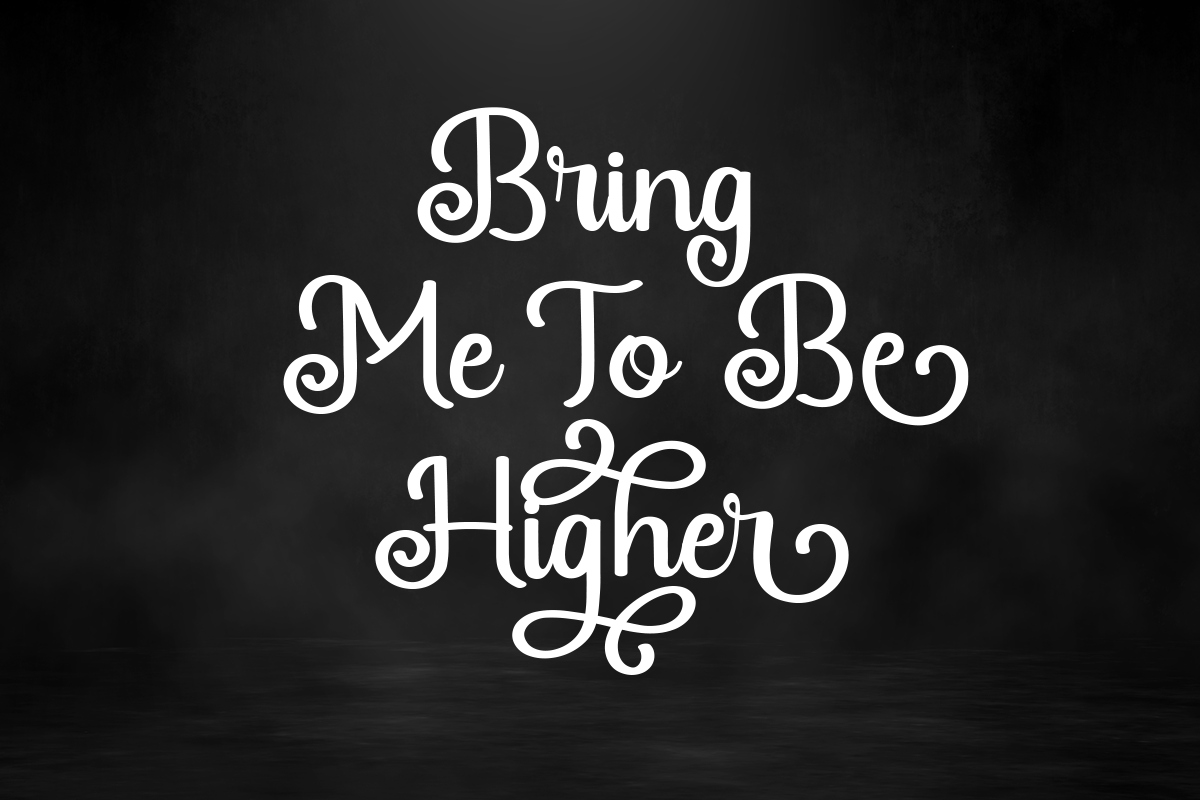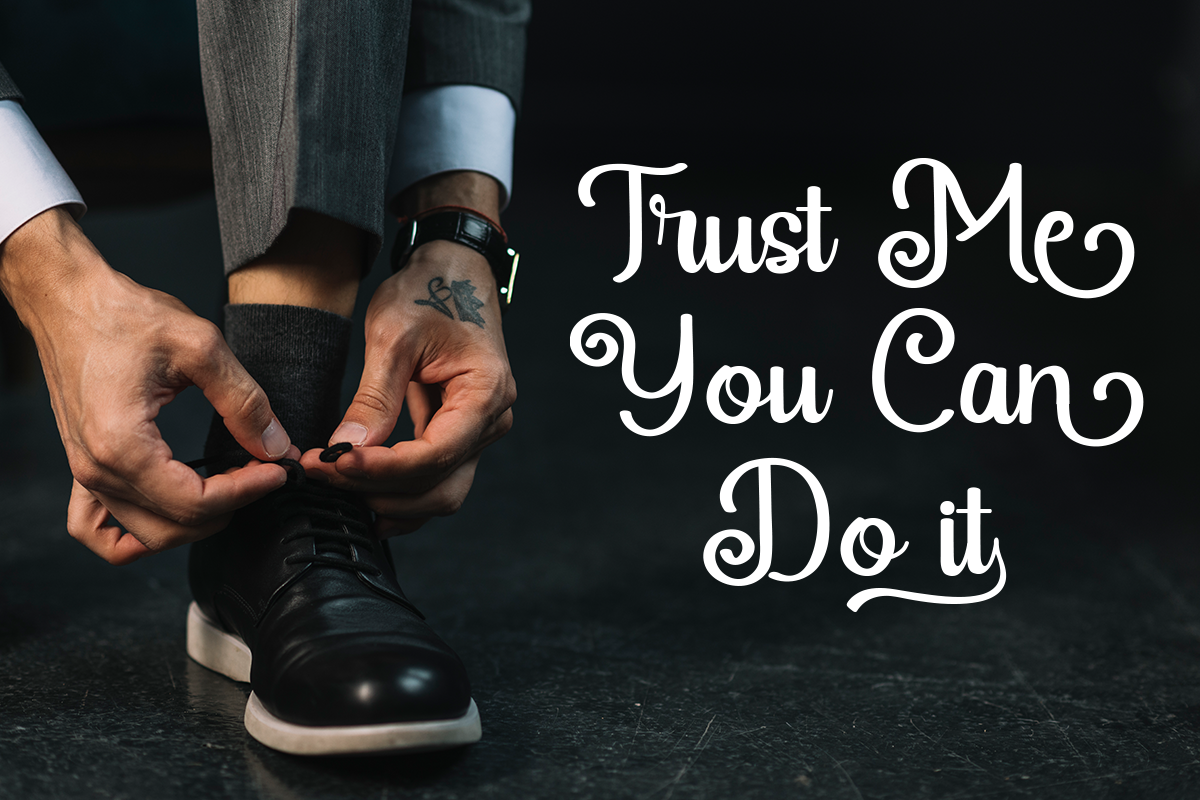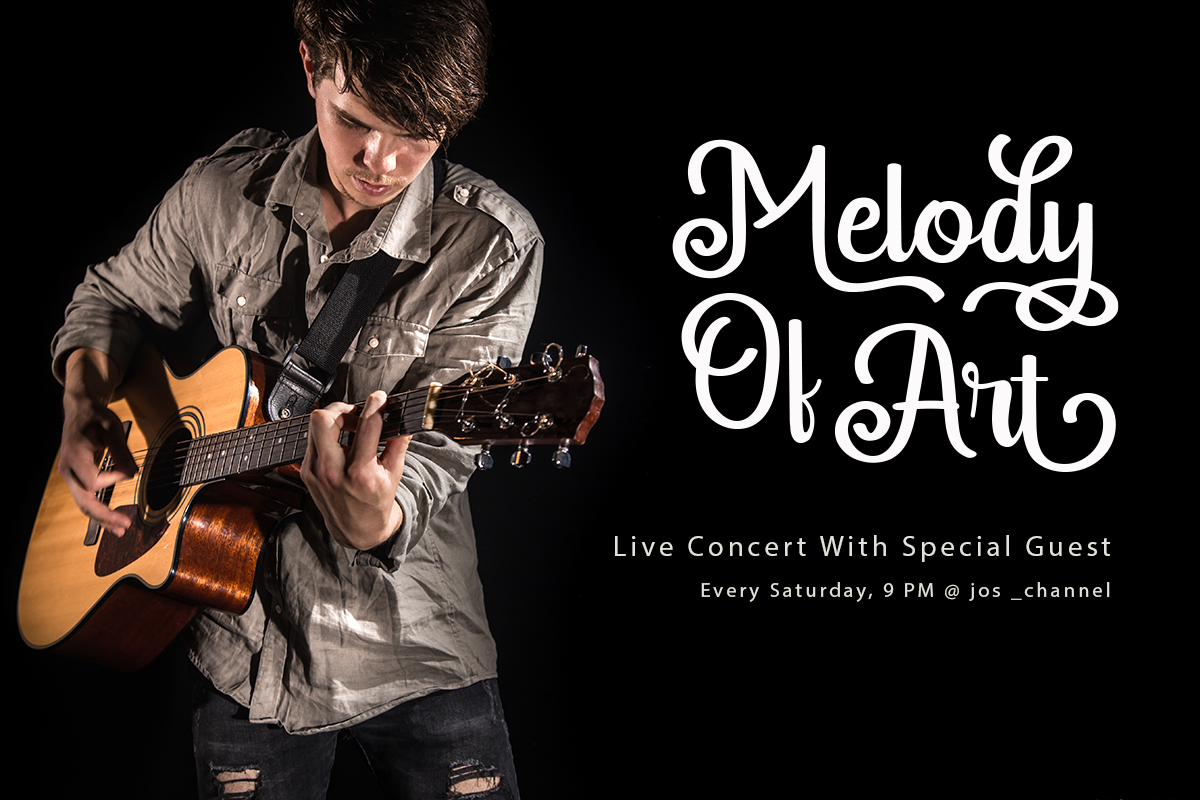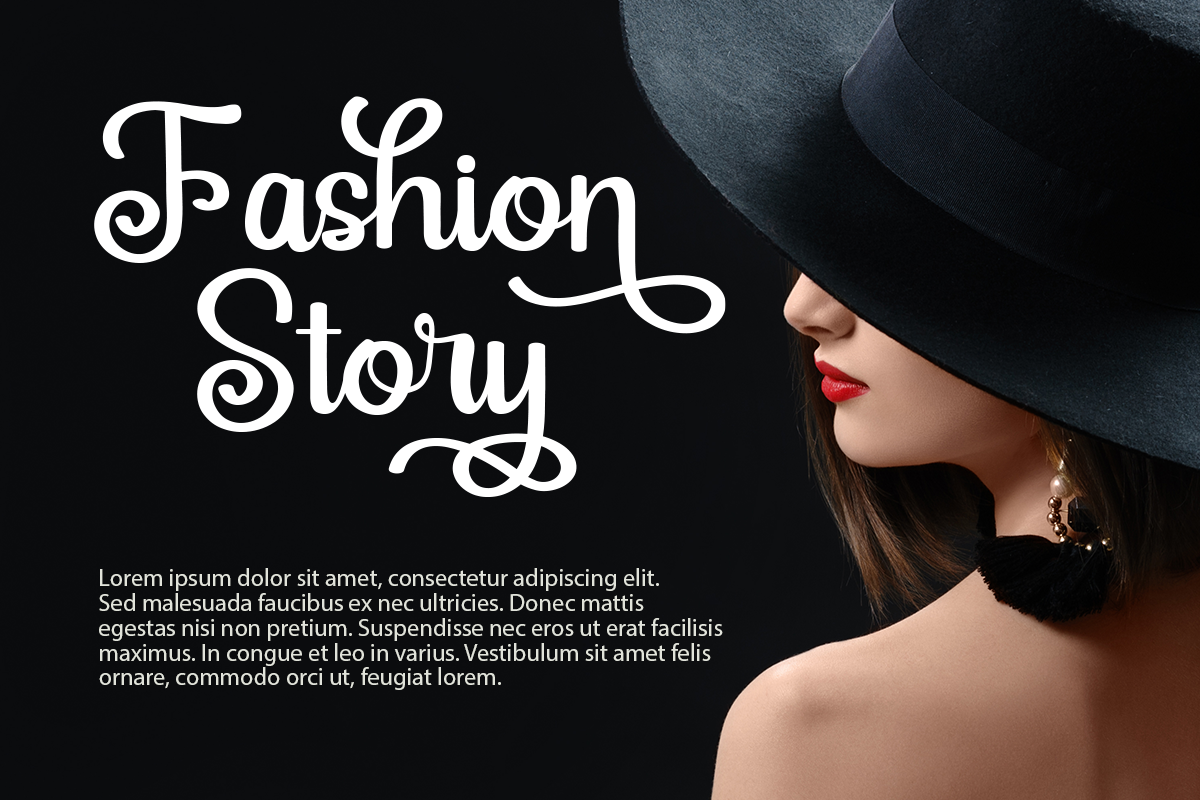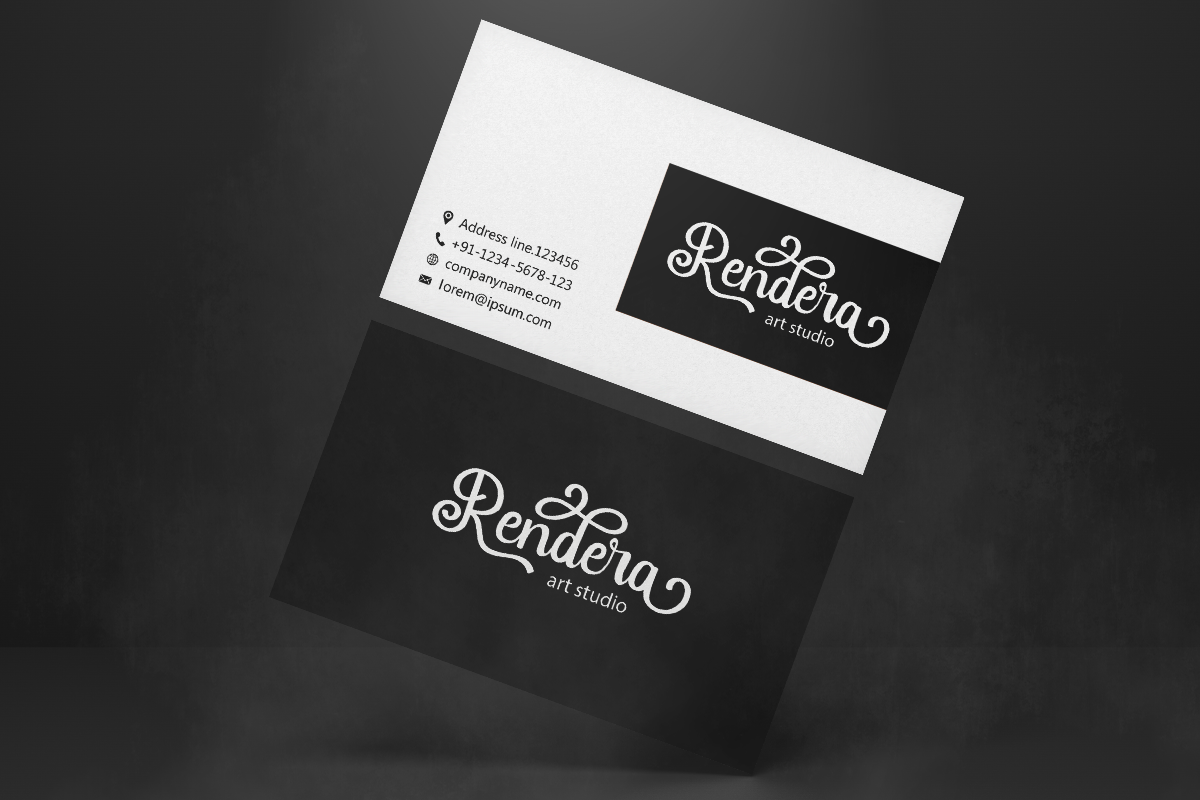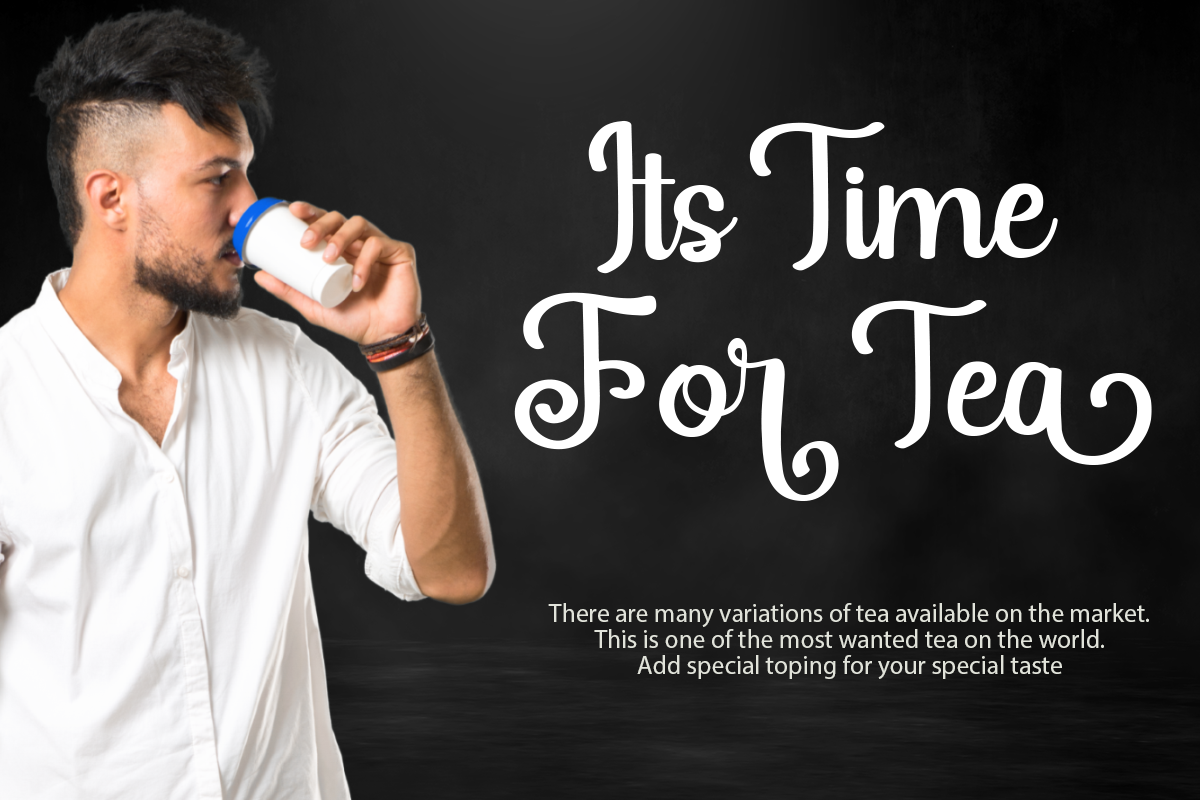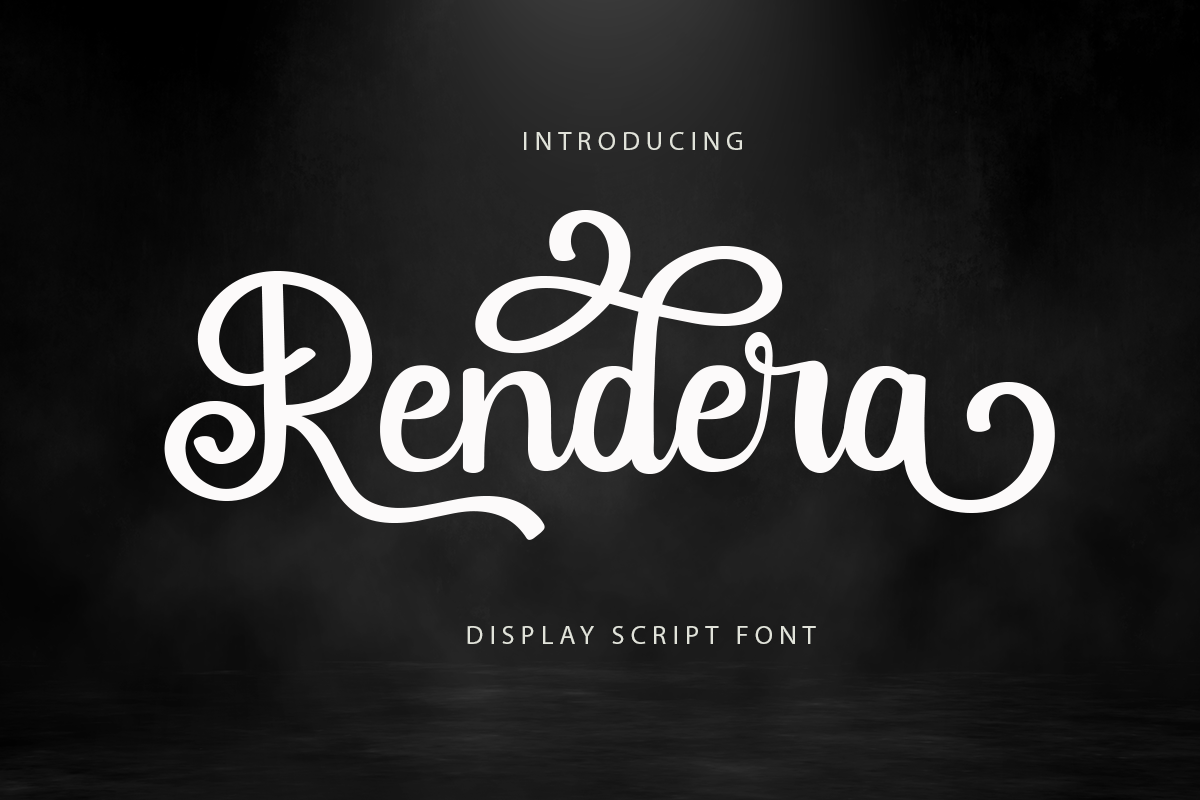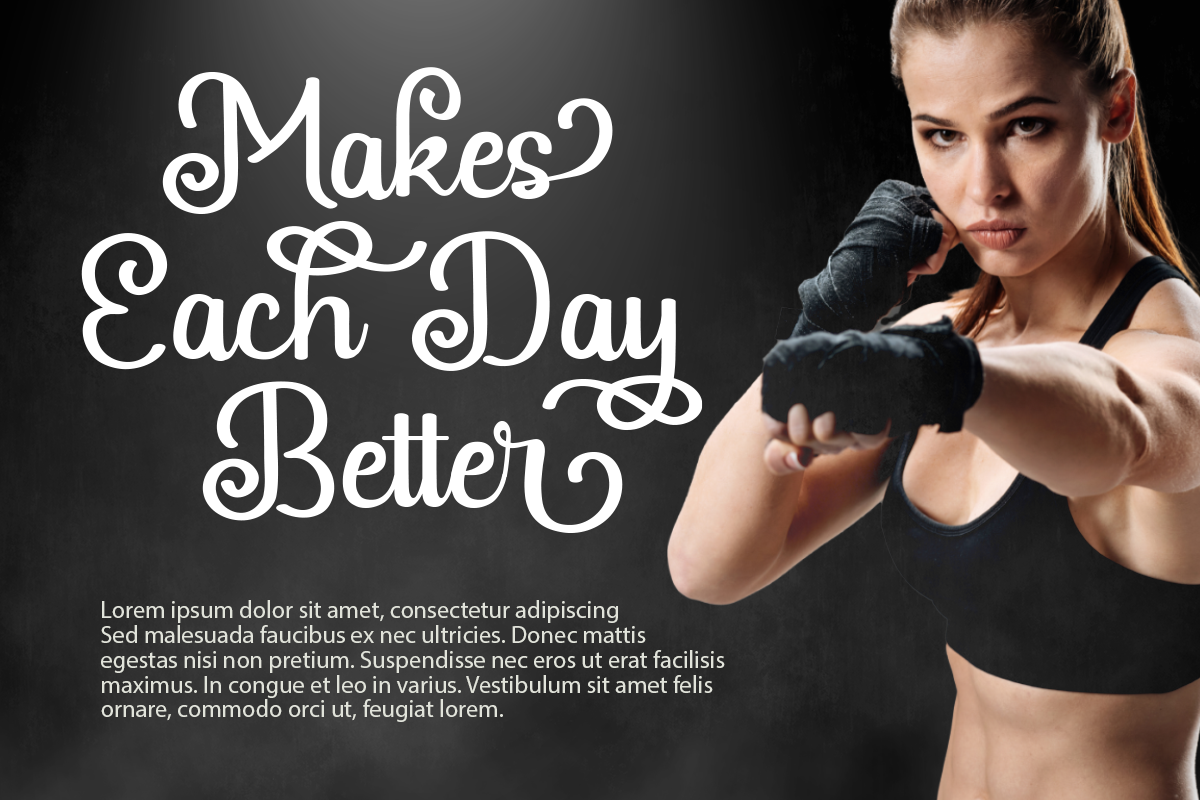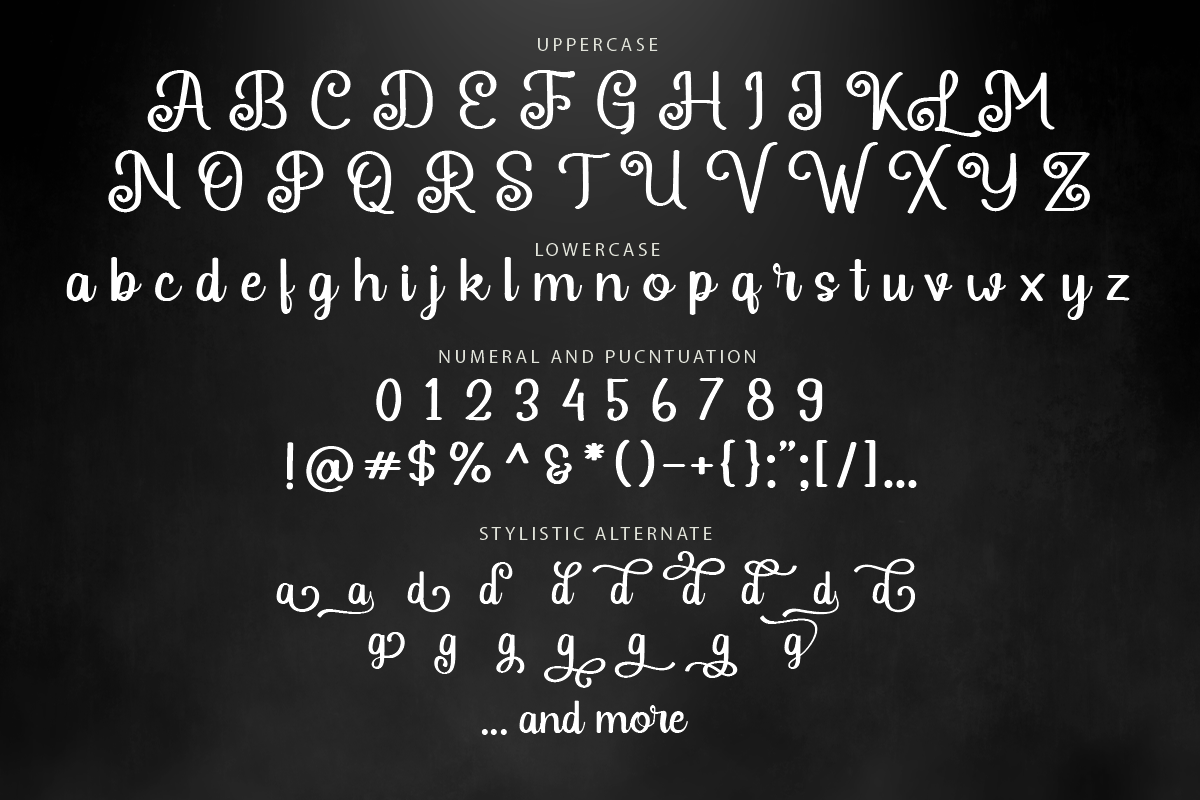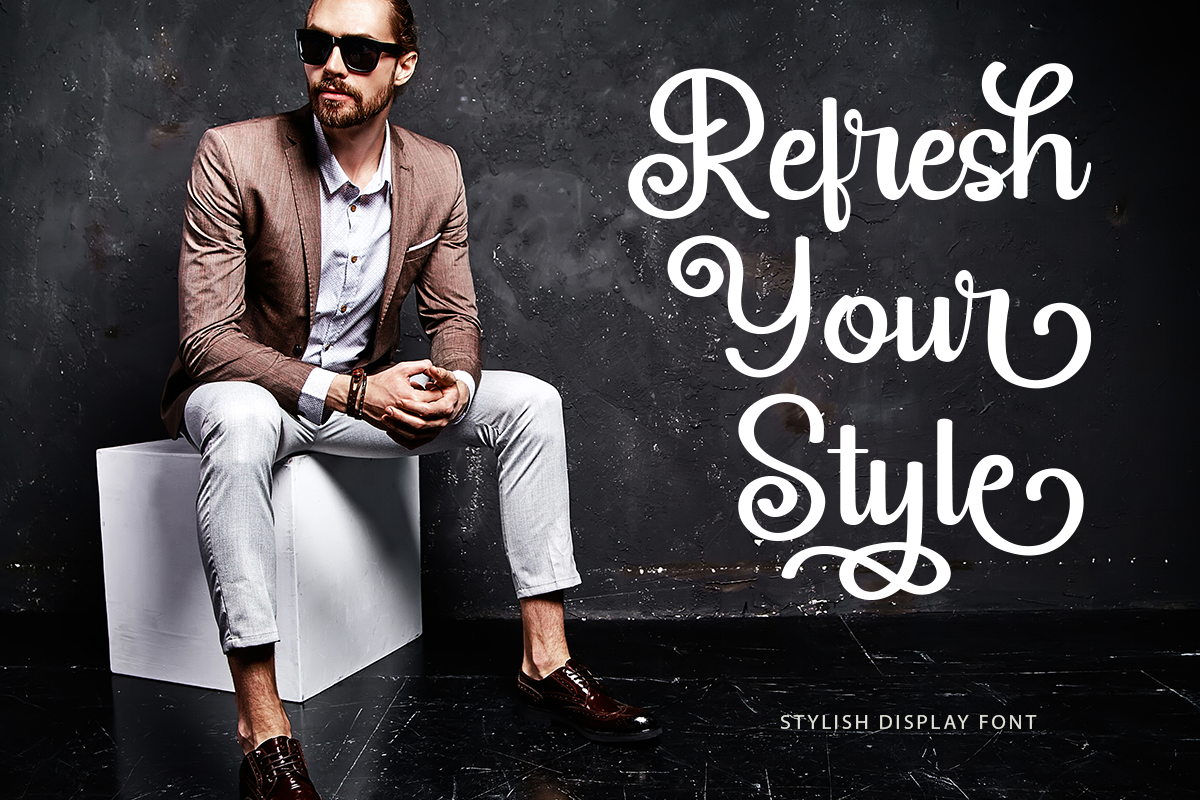
Rendera - Elegant Script Font
Introducing “Rendera” - Elegant Script Font With Elegant Look.
If you want to make beautiful word for headline or display, you can use opentype features to access alternate letters.
Rendera Font is perfect for any awesome projects that need stylish headline font or elegant display.
- Stylistic alternate & ligature